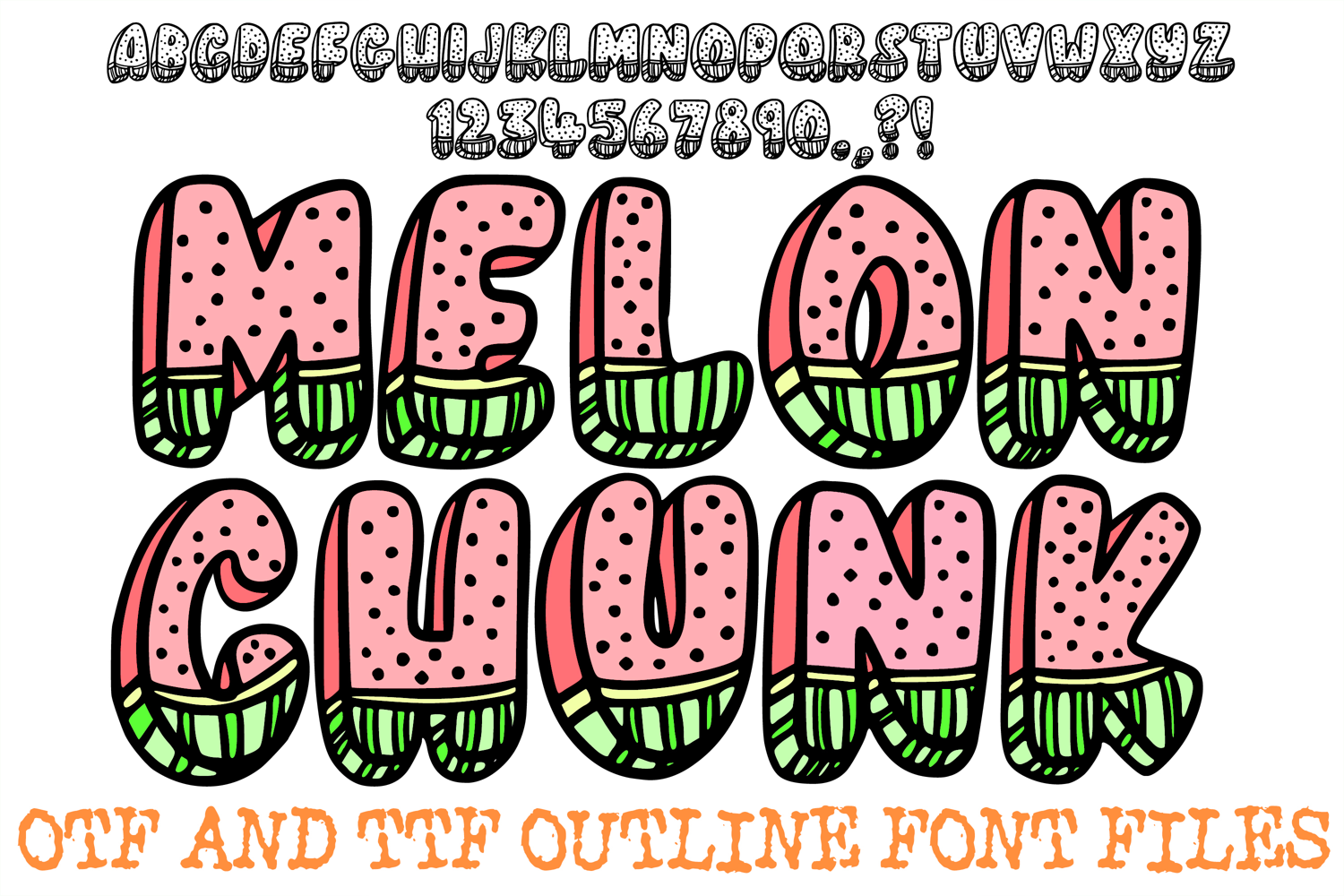
Give your creations a bold, juicy upgrade with Melon Chunk, an installable 3D display font designed to mimic thick watermelon slices. Featuring chunky, bubble-style letterforms with seeds, green striped rinds, and bold dimensional shadows, this typeface brings extra pop and playfulness to summer projects.